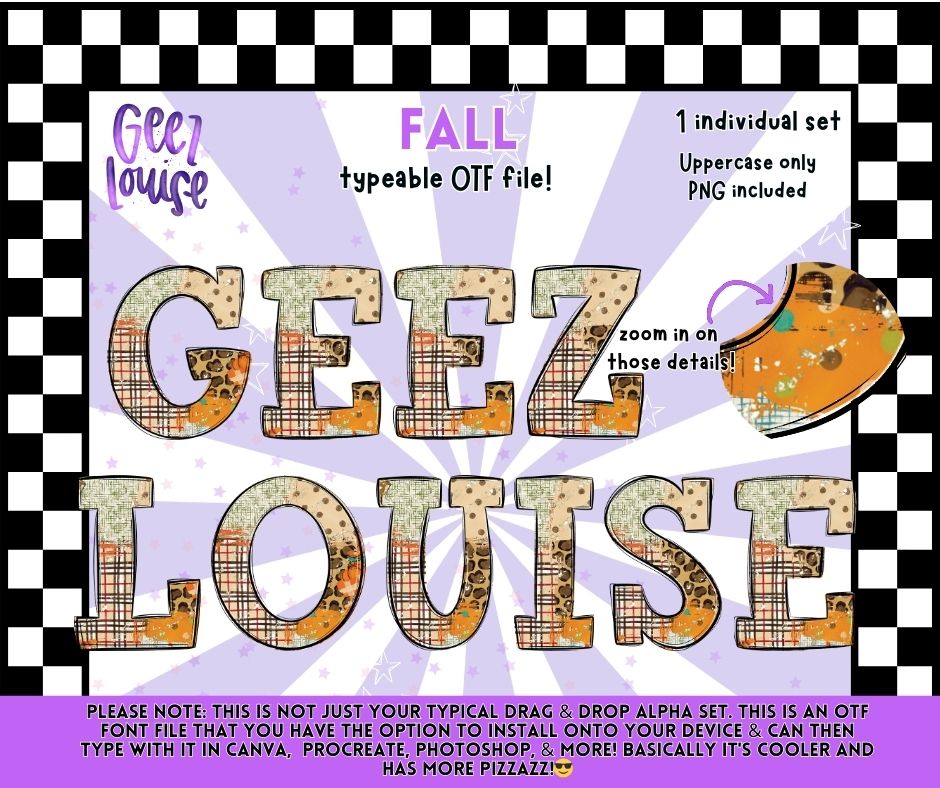
Fall OTF Font & PNG Alpha Set | Typeable Alphabet | Uppercase Letters | Autumn Digital Download
Add cozy autumn style lettering to your designs with this typeable OTF alpha set.
• Uppercase letters only